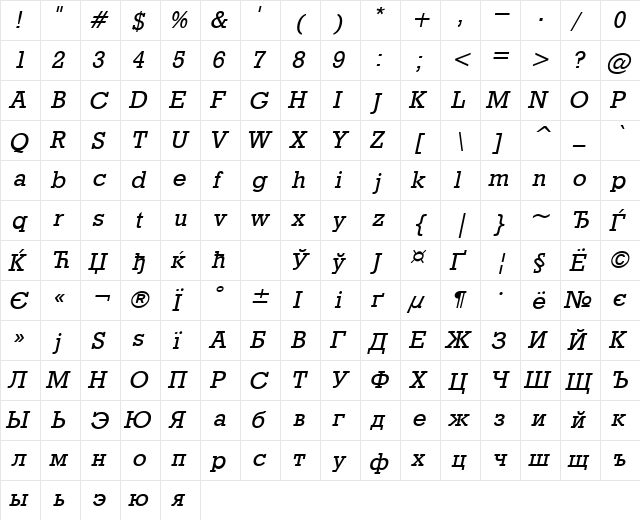
Rodeo Italic
Design Context for Rodeo Typeface
Rodeo offers clean, dependable letterforms without strong stylistic allegiance, making it a practical choice for designers who need flexibility. Its italic angle brings a sense of urgency and motion to the letterforms.
Pro Tip: Try Rodeo for annotation and caption copy alongside an upright companion — the contrast in angle creates a dynamic but ordered typographic system.